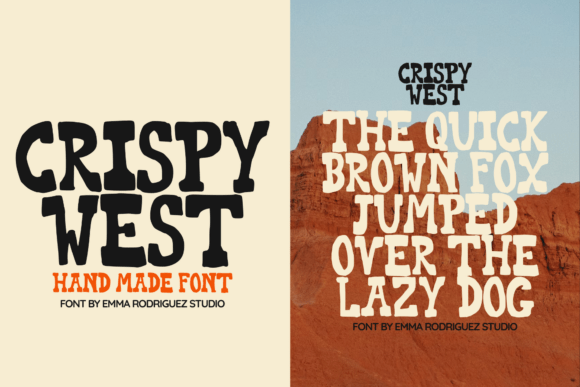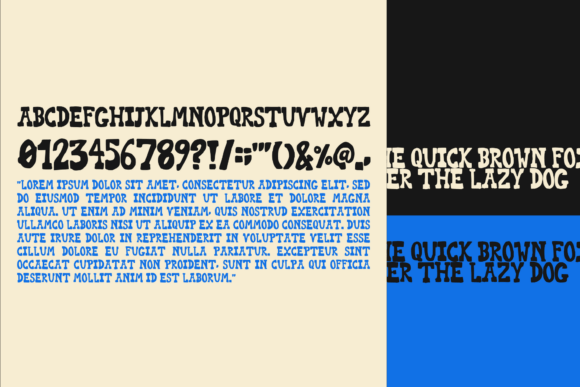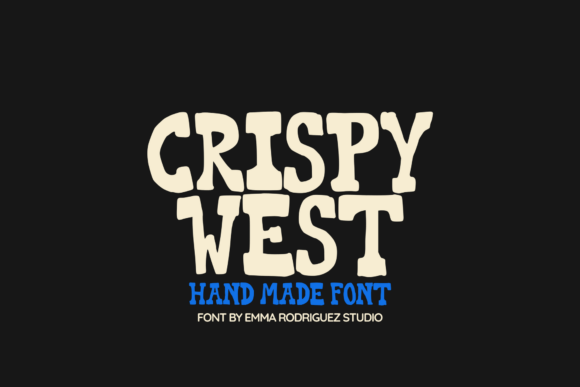
Crispy West: The Ultimate Gritty Hand-Drawn Western Font for Bold and Quirky Designs
Howdy, designers and artists! Are you looking for a font that adds a rebellious twist to your designs? Look no further than Crispy West, a raw, rugged display font with a hand-drawn edge and Western grit. Inspired by vintage rodeo posters, outlaw signage, and dusty backroad Americana, this typeface is perfect for those who want their work to feel wild, untamed, and packed with character.
The Inspiration Behind Crispy West
Crispy West is more than just a font – it’s an attitude, a vibe, and a way to add some cowboy chaos to your designs. The inspiration behind this gritty font comes from the wild west, where rough-riding outlaws and rugged cowboys ruled the roost. The font’s creator drew inspiration from vintage rodeo posters, outlaw signage, and dusty backroad Americana, bringing a unique and authentic Western feel to the digital world.
What Makes Crispy West So Special?
Crispy West is rough around the edges in all the right ways, bold, imperfect, and full of personality. This hand-drawn font is not your average, run-of-the-mill typeface. It’s a rebellious twist on classic Western lettering, with a gritty, raw feel that’s perfect for designers, artists, and makers who want to add some edge to their work.
Crispy West is ideal for a wide range of design projects, including:
• Merch: Add a touch of Western grit to your t-shirts, hats, and other merchandise.
• Posters: Create eye-catching posters for concerts, events, or promotions.
• Zines: Add some personality to your zines and small publications.
• Logos: Create bold and memorable logos for your business or brand.
• Packaging: Add some Western flair to your product packaging.
• Album Art: Create bold and eye-catching album art for musicians and bands.
Why Designers and Artists Love Crispy West
Designers and artists love Crispy West for its unique and authentic Western feel. This font is perfect for those who want to add some edge and attitude to their work. Whether you’re branding a coffee shop, making band tees, or putting together a modern Western-style layout, Crispy West is the perfect choice.
How to Use Crispy West in Your Designs
Using Crispy West in your designs is easy. Here are a few tips to get you started:
• Use it for bold titles and headings to add some Western flair to your designs.
• Pair it with other fonts to create a unique and interesting contrast.
• Experiment with different colors and textures to add some grit and personality to your designs.
• Use it to create gritty graphics, punchy quotes, and standout statements.
In conclusion, Crispy West is the ultimate gritty hand-drawn Western font for bold and quirky designs. With its raw, rugged feel and authentic Western inspiration, this font is perfect for designers, artists, and makers who want to add some edge and attitude to their work. Whether you’re creating merchandise, posters, zines, logos, or packaging, Crispy West is the perfect choice. So why wait? Saddle up and get creative with Crispy West today!